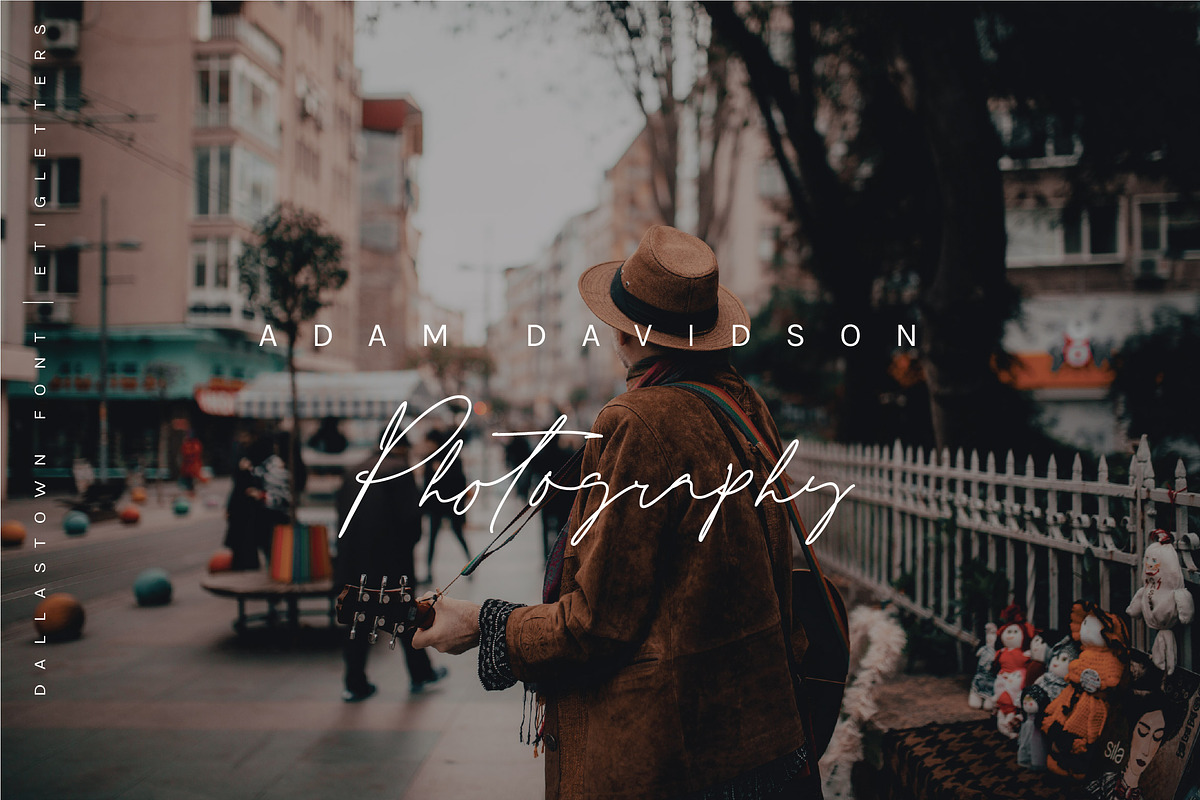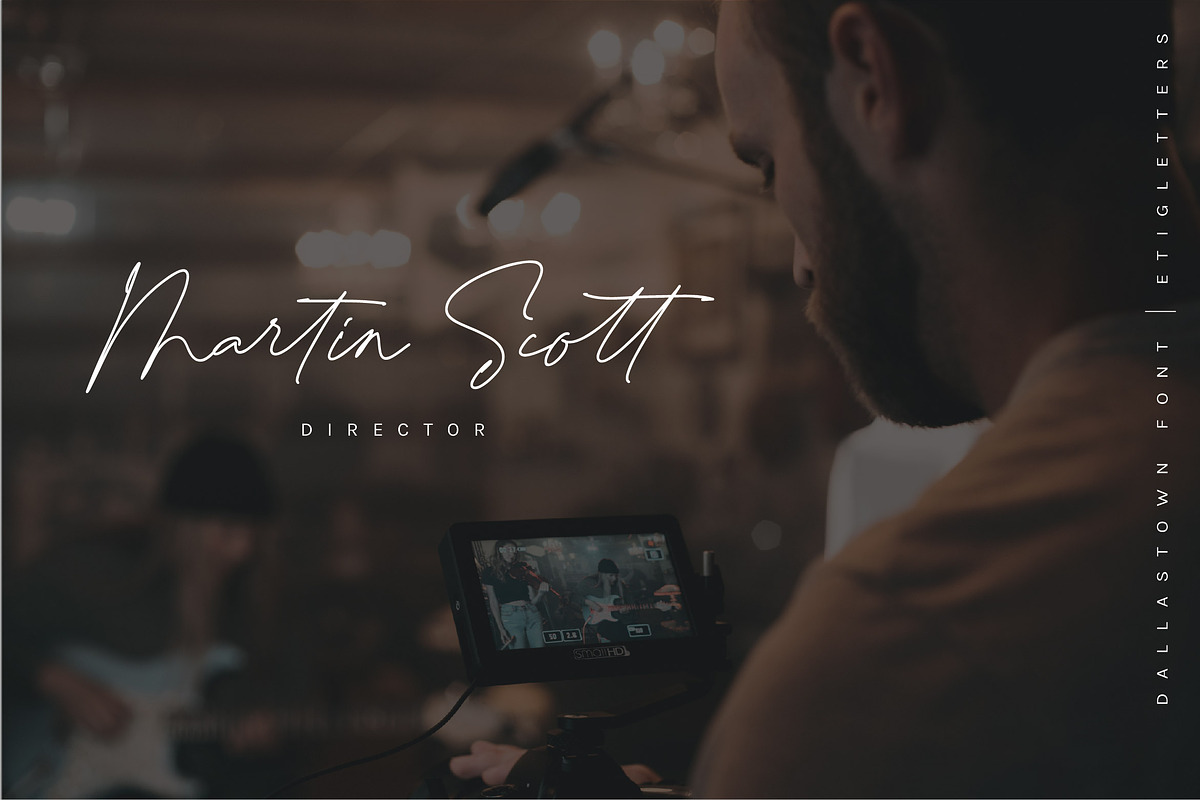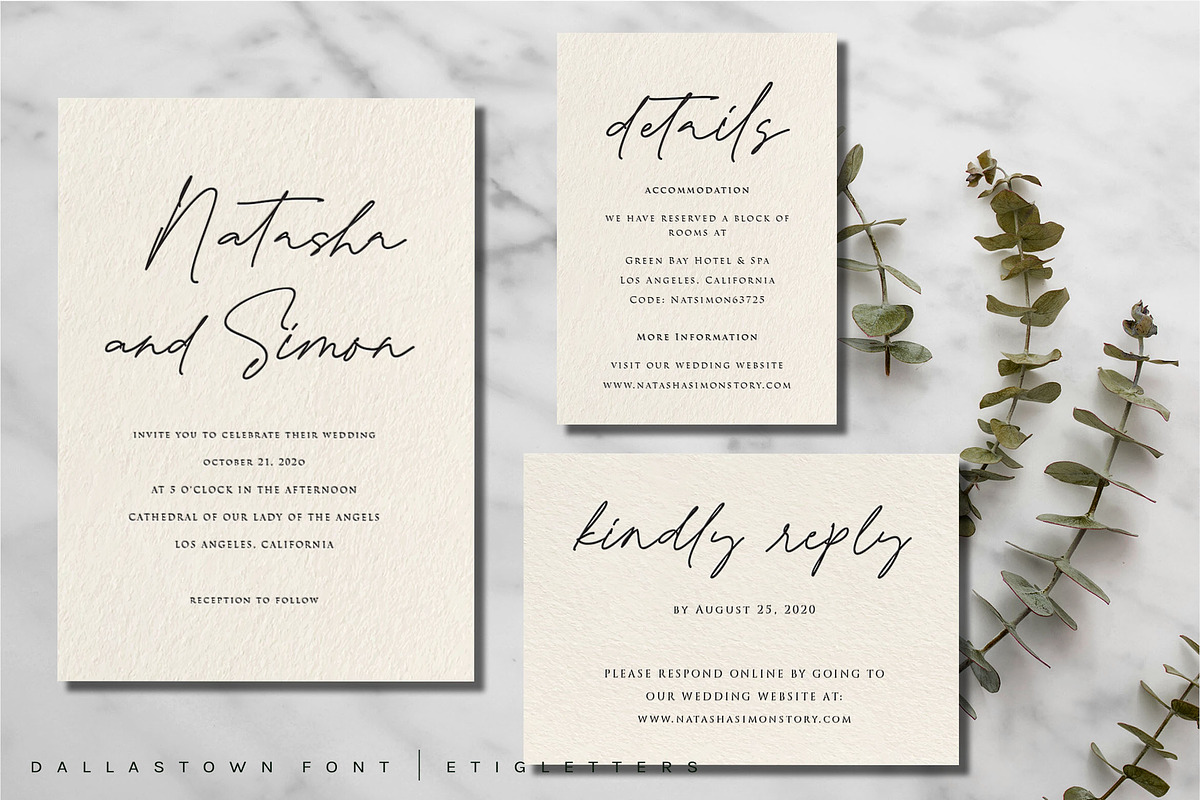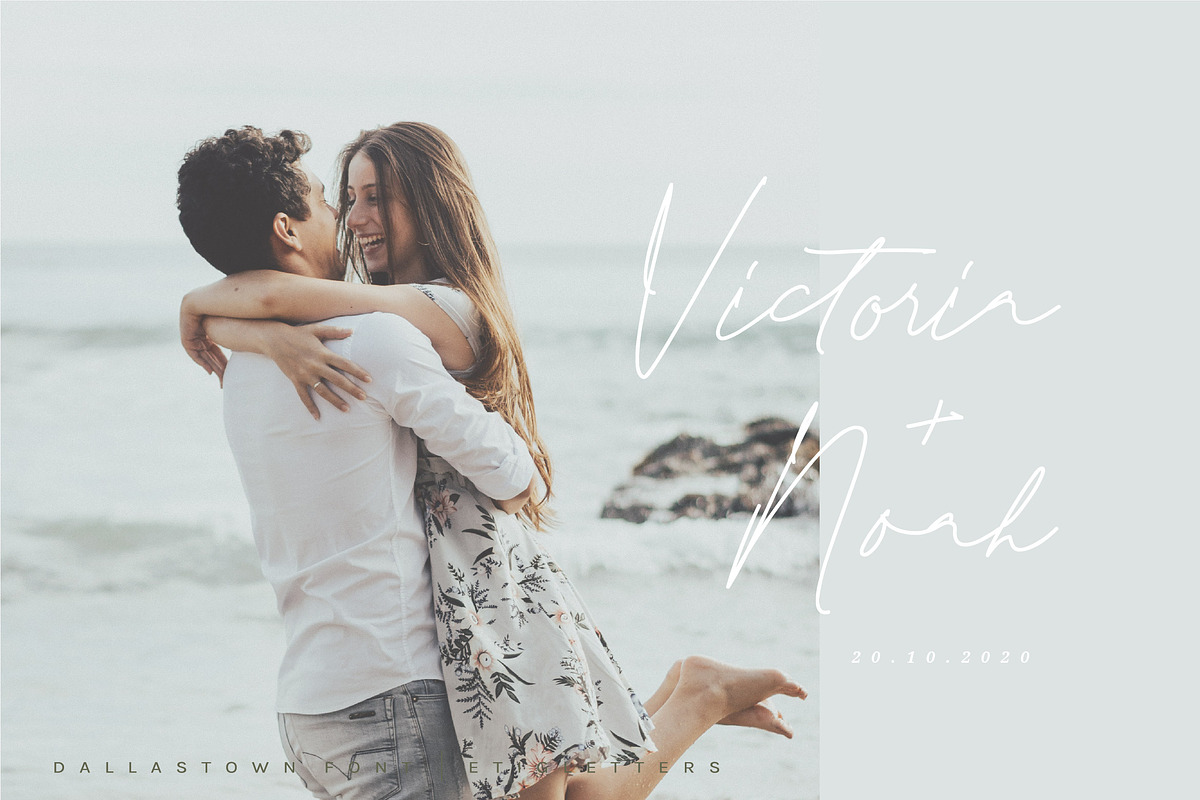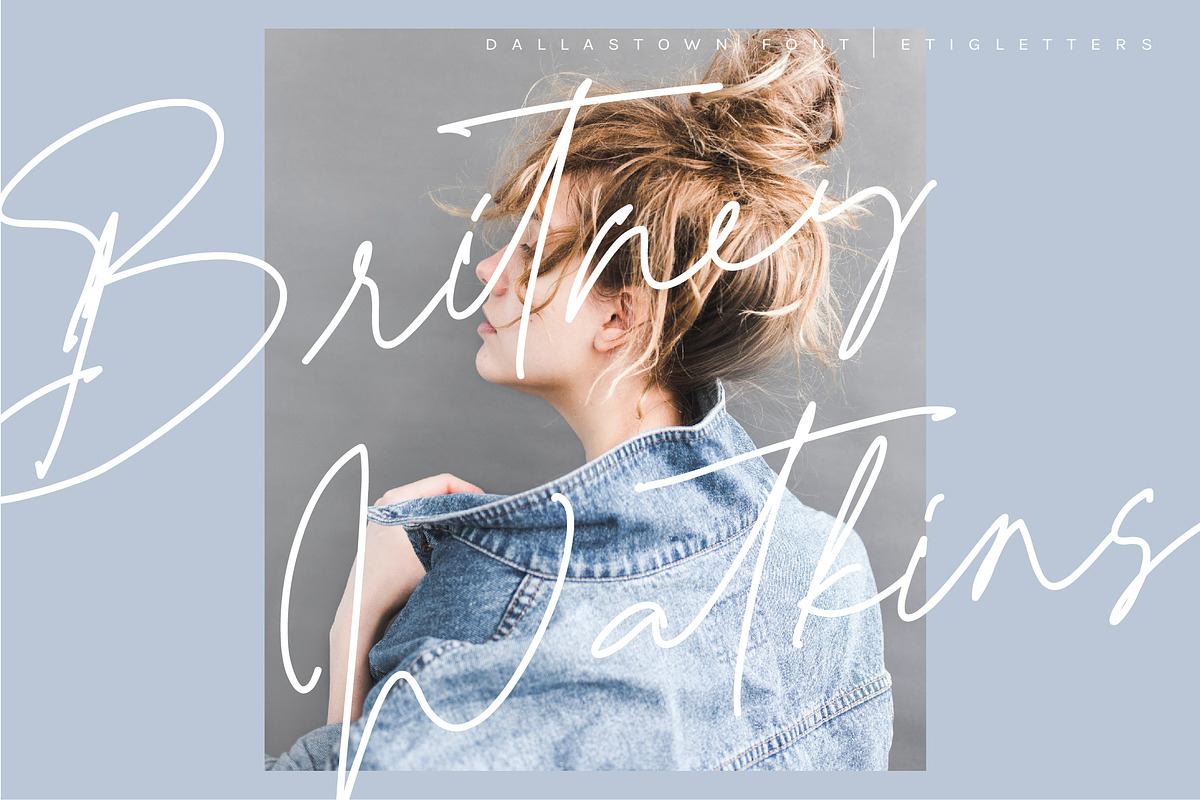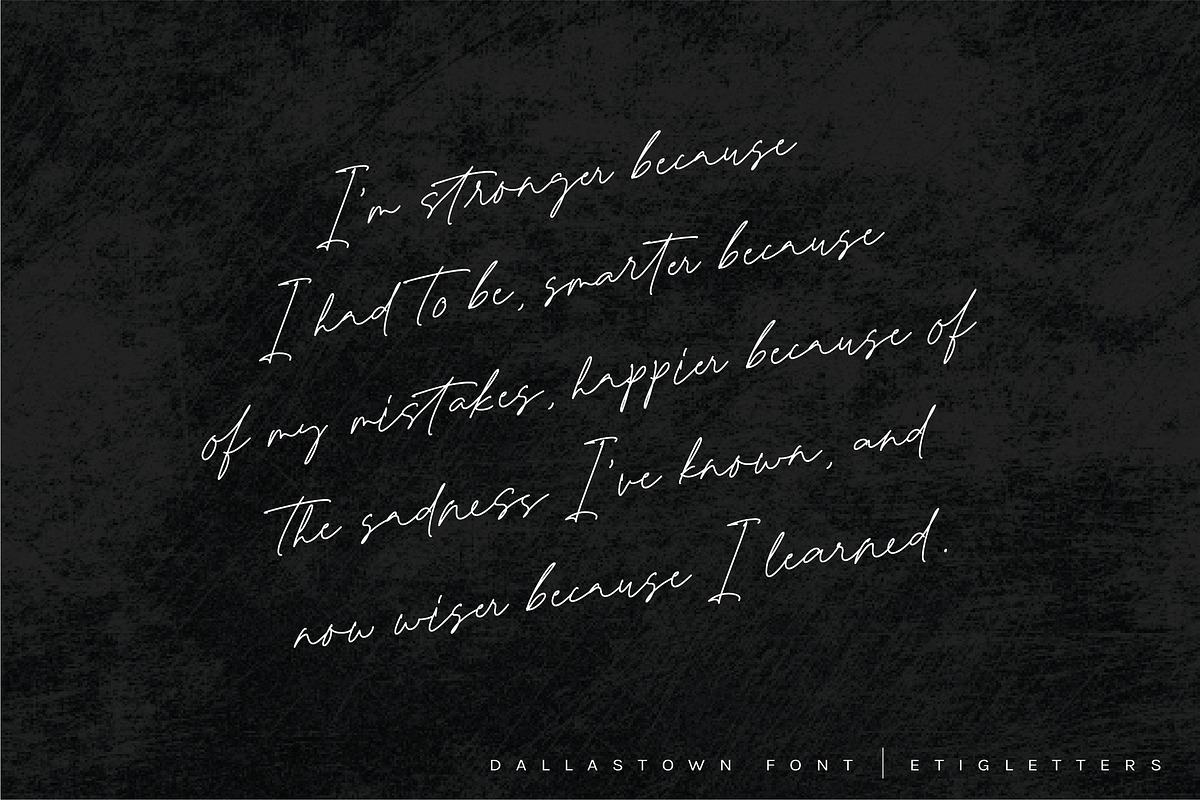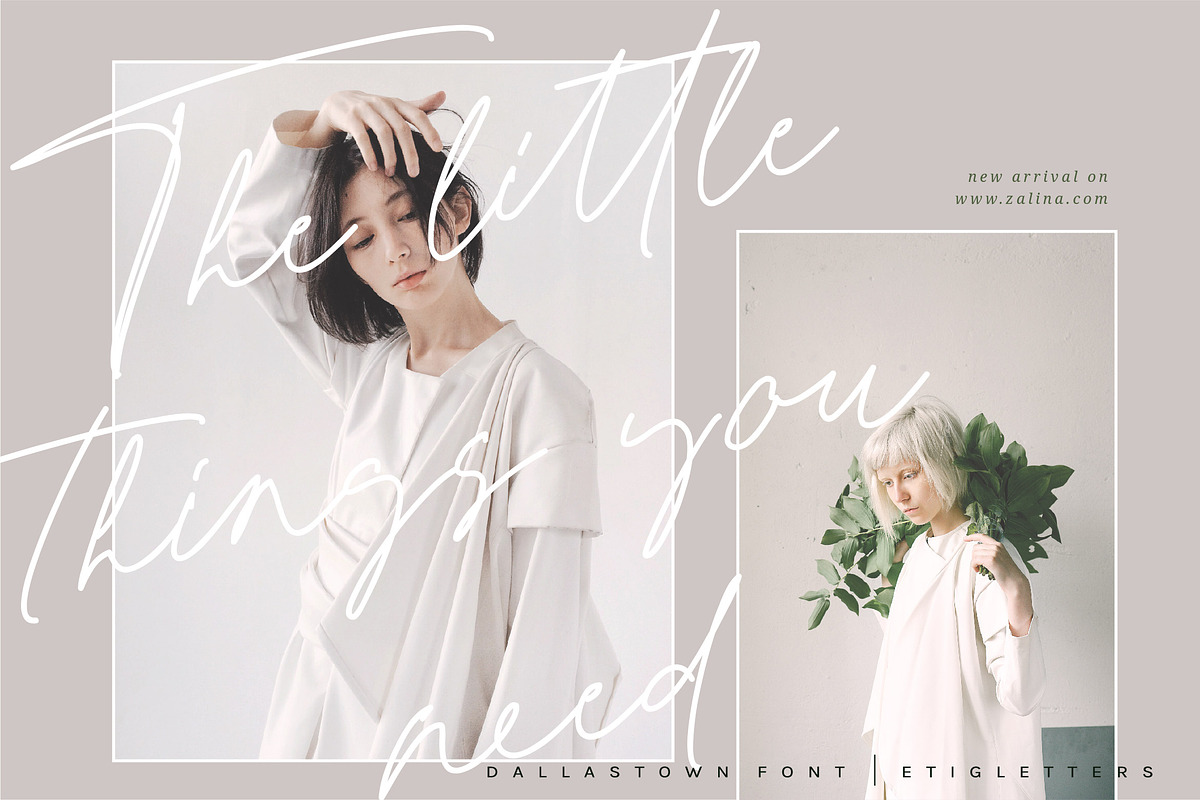
Dallastown - Script Font
Dallastown is a handwritten modern script font with signature flowy monoline style. Ideal for creating handwritten style logos, wedding stationery, branding signature logos, watermarks logos, websites, styled quotes, and many more. More than 70 ligatures.
Dallastown includes full set of gorgeous uppercase and lowercase letters, numerals, a large range of punctuation and more than natural 70 ligatures. It’s perfect signature script to help you personalize a branding project. Dallastown is also support multilingual and already PUA Encoded!